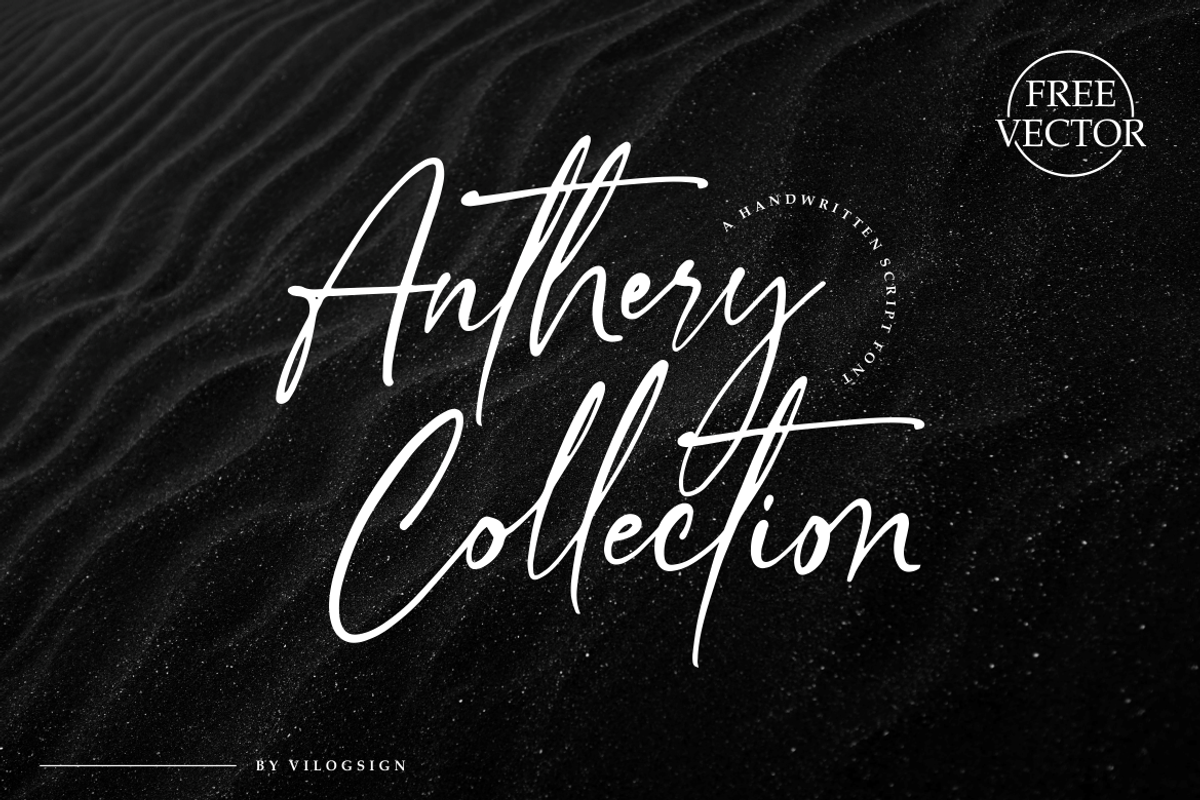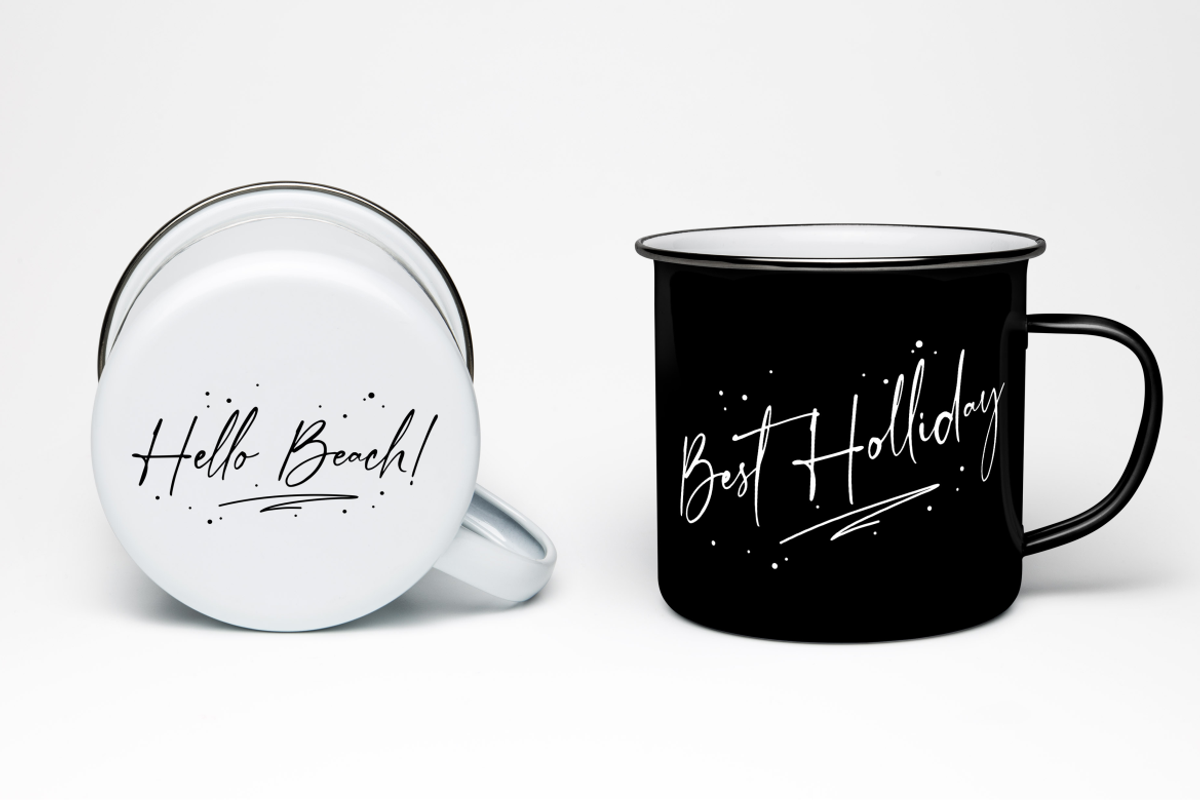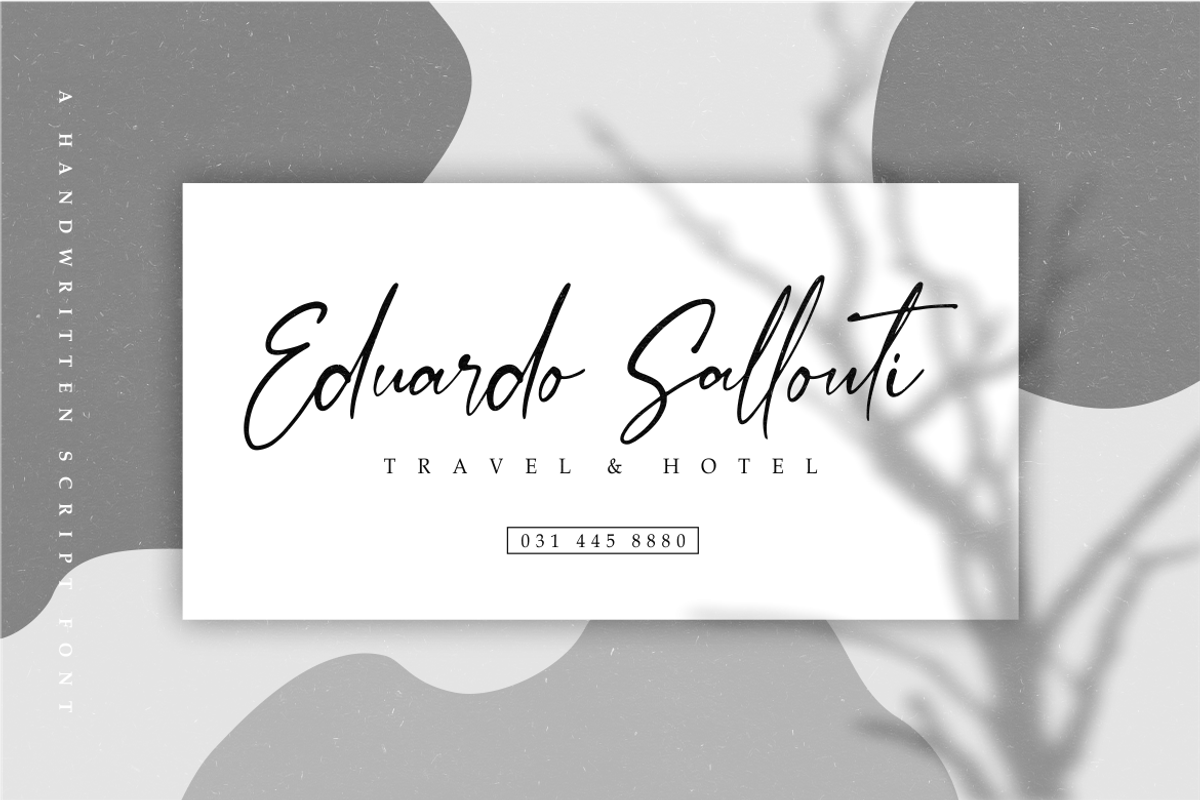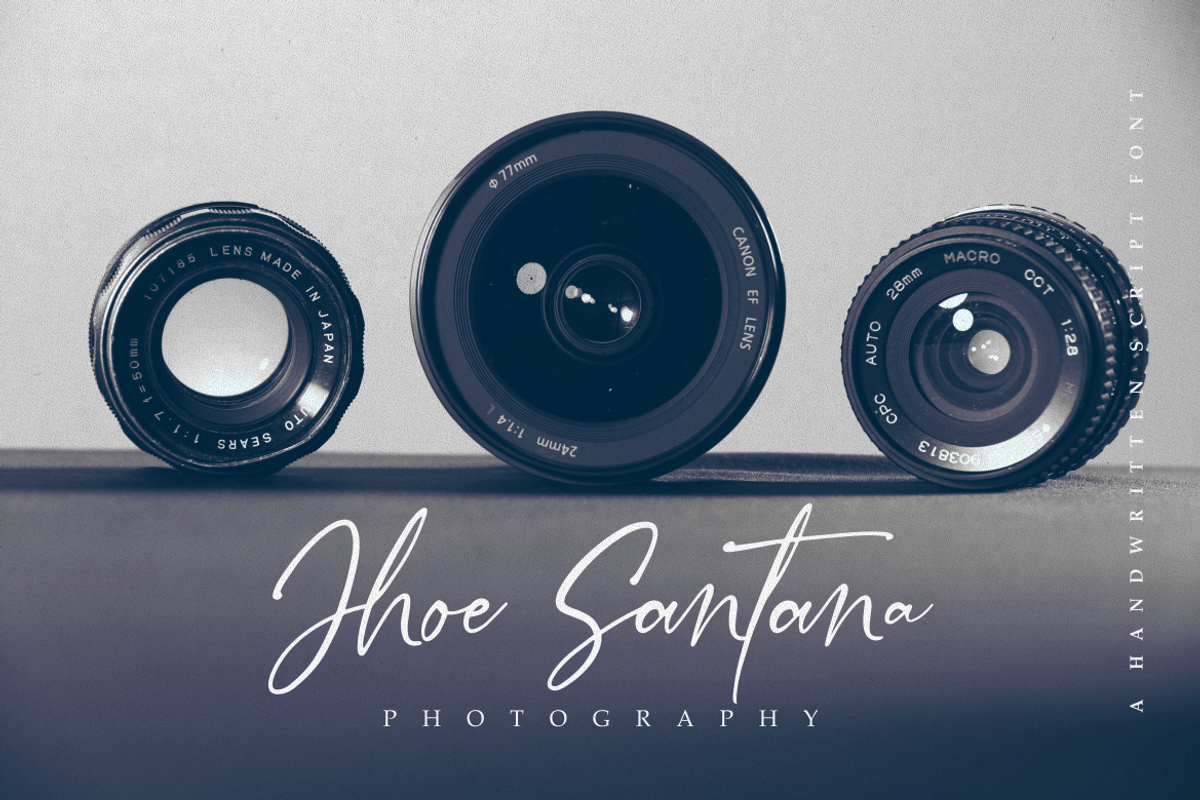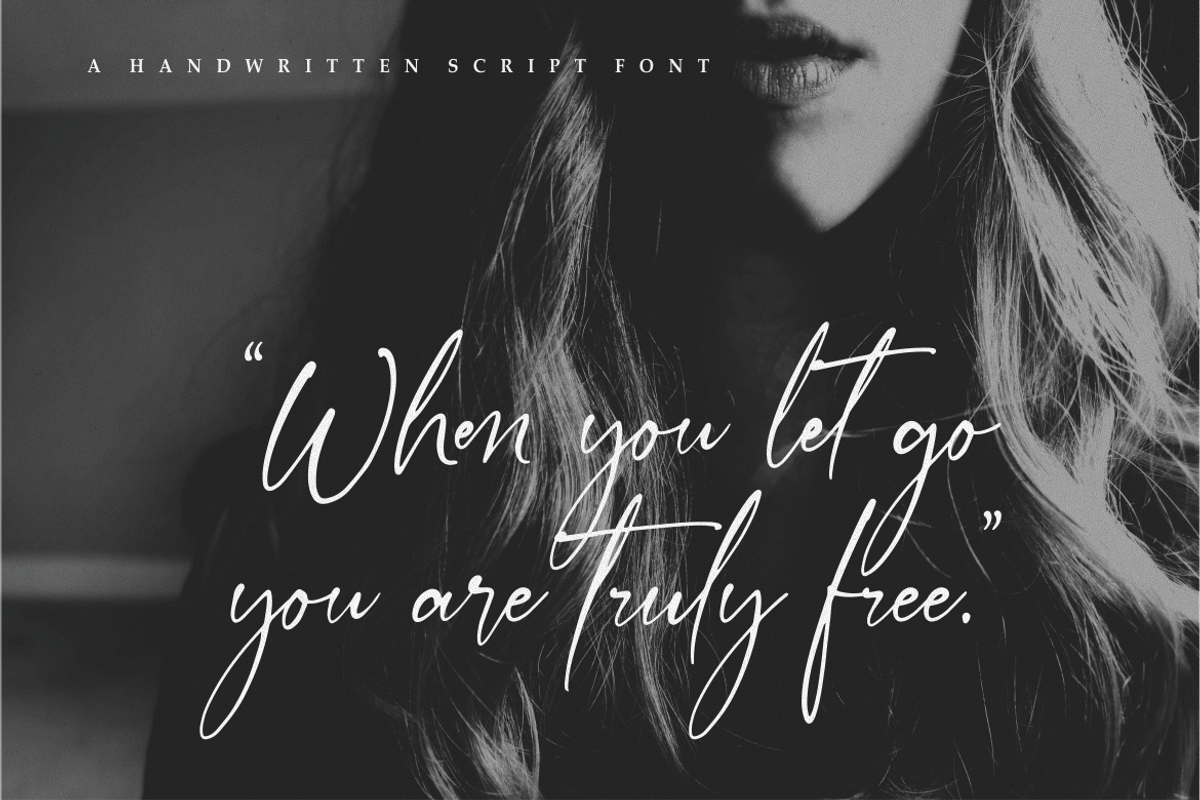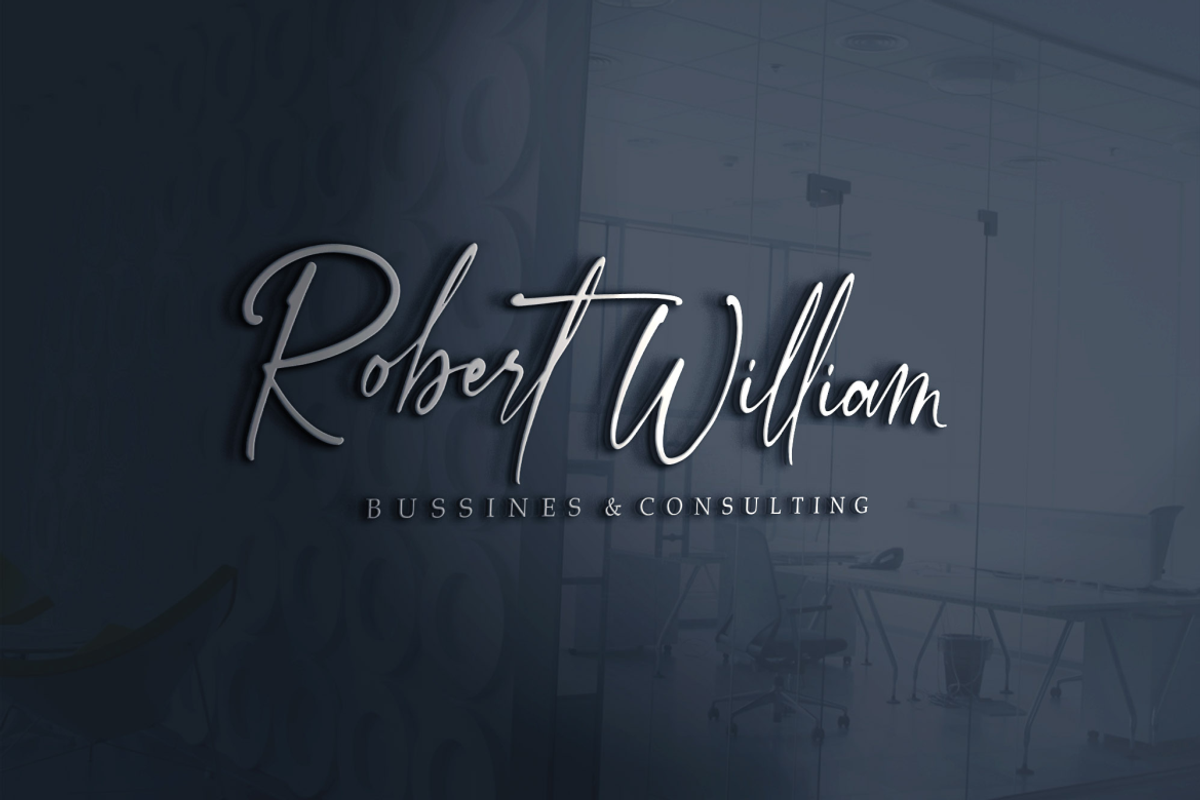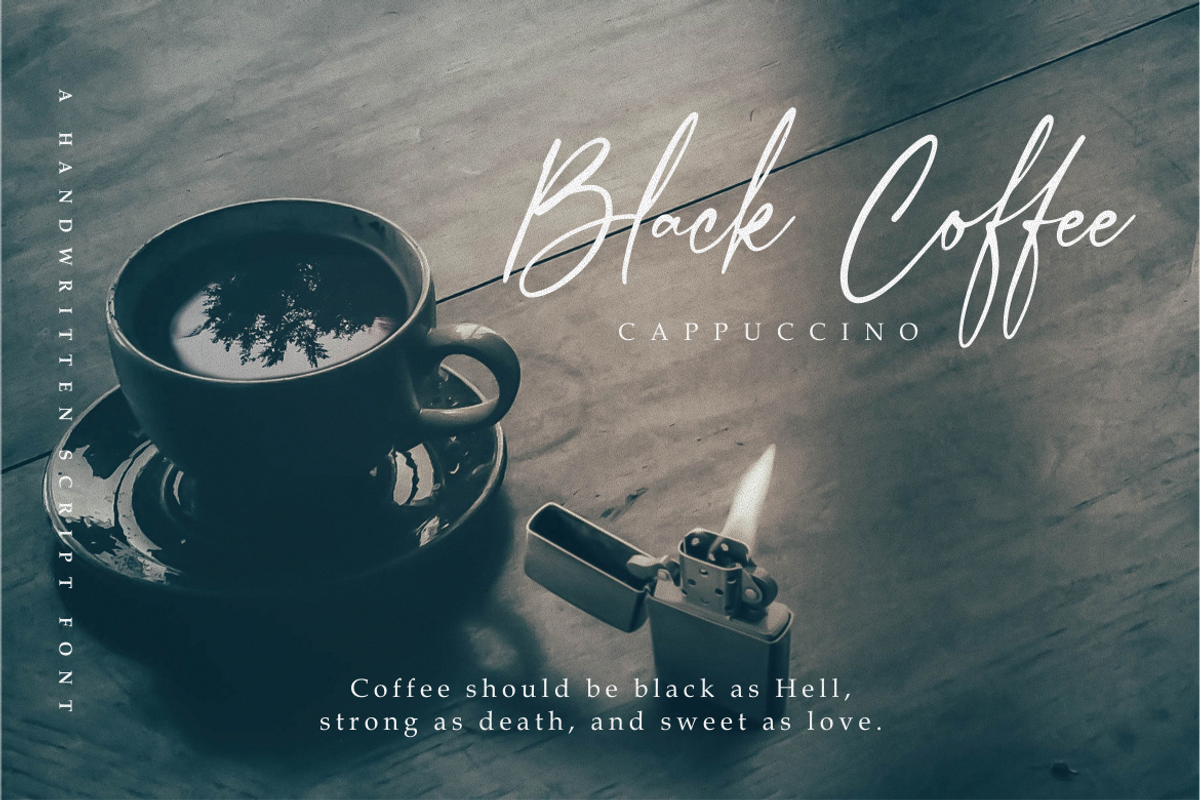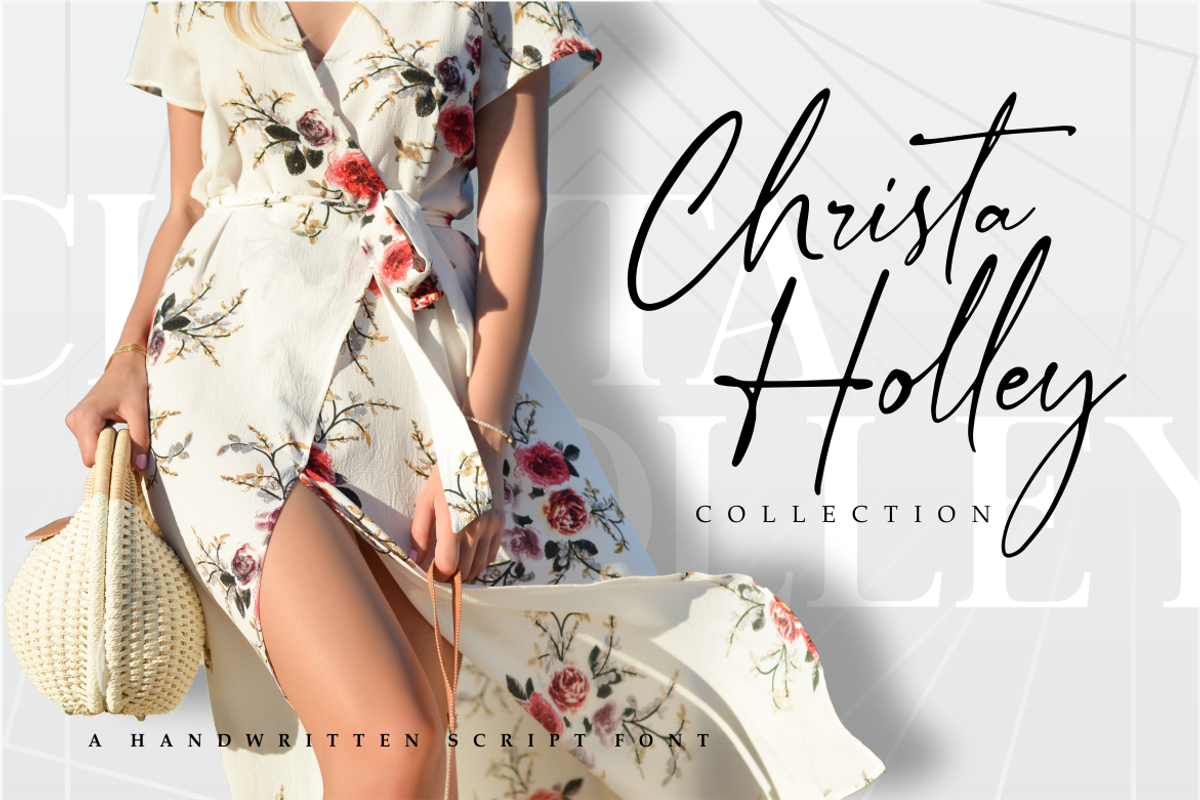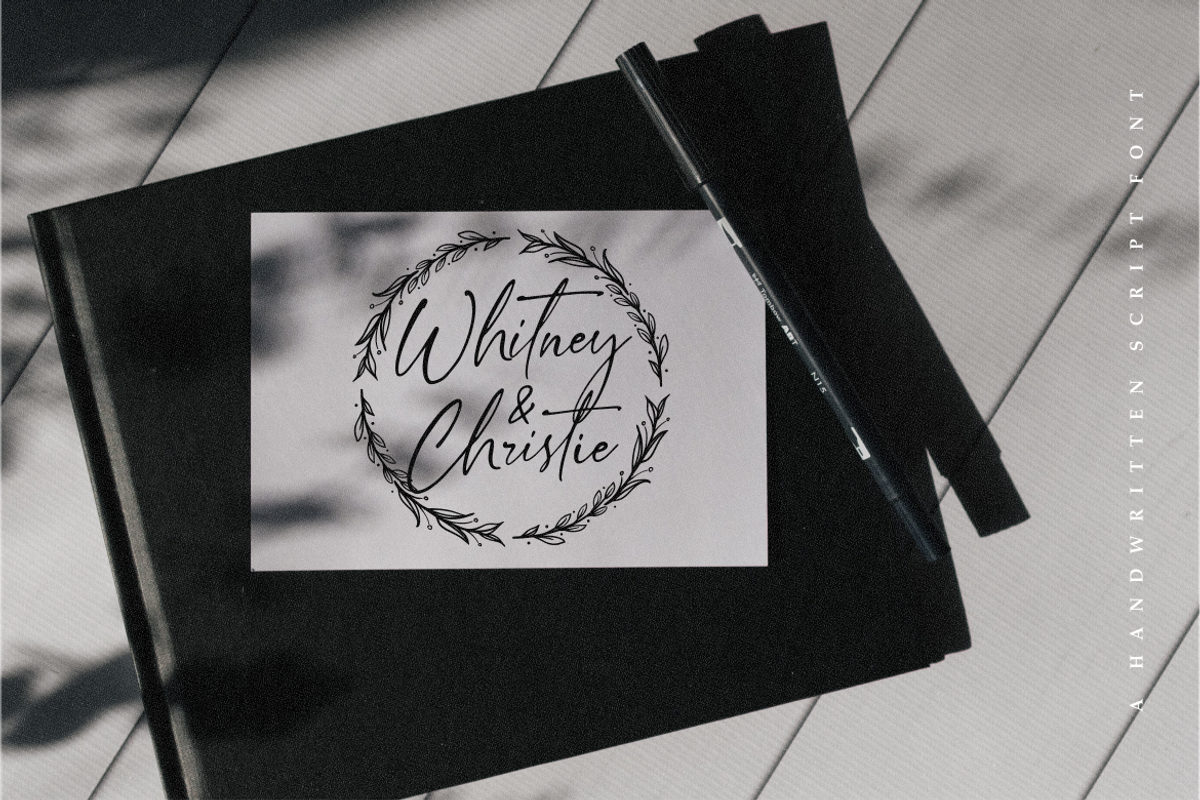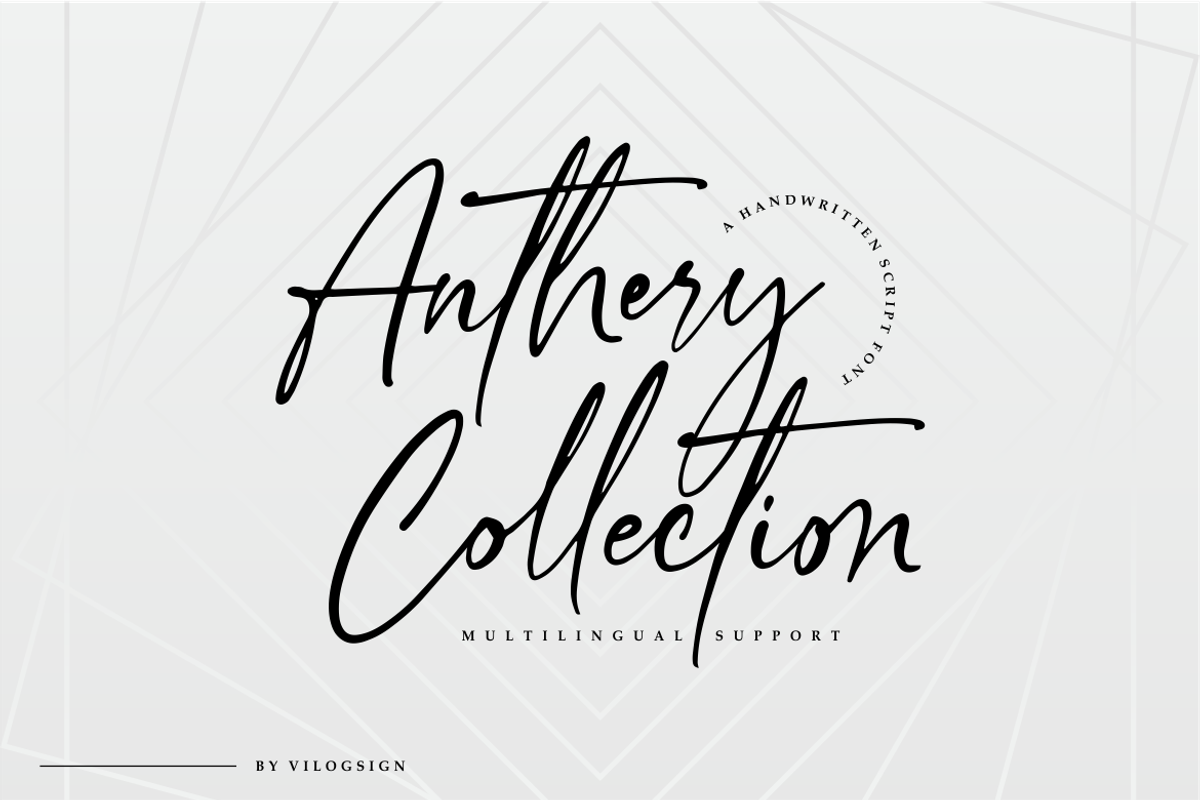
Anthery Collection Signature Font
Hi,,, Introducing the new "Anthery Collection" a beautyful handwritten script font. A beautiful vintage script font with alternative and 80 ligatures to complete your needs. With built in Opentype features, this script comes to life as if you are writing it yourself.
This font is very good with additional alternatives, multilingual support. This font also include a beautiful circle flower vector (EPS) to complete your needs. You can use it in Adobe illustrator, Corel Draw.
I make this font with lovely so make this font look natural, classic and elegant, very suitable to make a branding, magazine, fashion, quotes, logo, packaging, and other.
- Ligature and Alternative